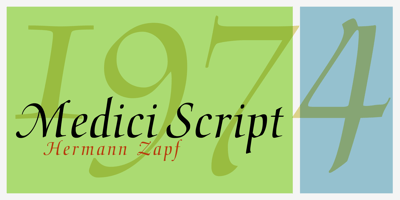
Medici Script Font Family was designed by Hermann Zapf and published by Linotype. Medici Script contains 1 styles and family package options. Medici Script is an elegant calligraphic script. The Medici Script font is ideal for use on invitations, greetings cards and business cards.Medici Script™ is a trademark of Linotype GmbH and may be registered in certain jurisdictions.